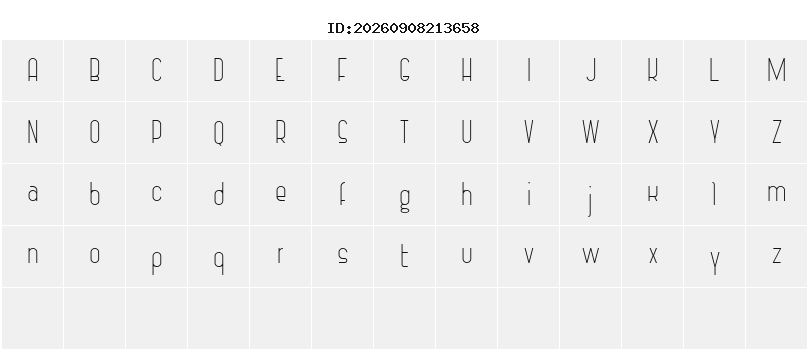
• Font Name: Vintage Straps
• Font Style: Light
• Full Font Name: Vintage Straps Light
• Designer: Studio Monocromo
• Manufacturer: Studio Monocromo
About Vintage Straps.ttf
Vintage Straps.ttf is a modern, elegant sans-serif font designed for ultimate readability and visual harmony. Perfect for branding, headlines, web design, and print materials.